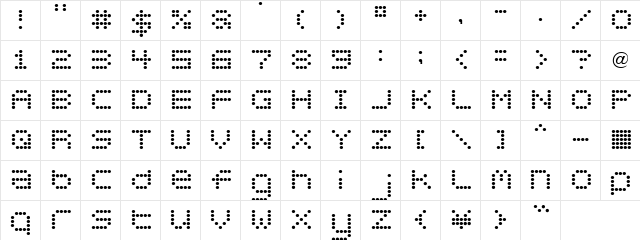
Circle30 Regular Font Preview
Circle30 Regular
Circle30 Regular Font Details
Design Context for Circle30 Typeface
Circle30 takes a measured approach to typography — its balanced proportions and neutral character make it a reliable workhorse for both digital and print work.